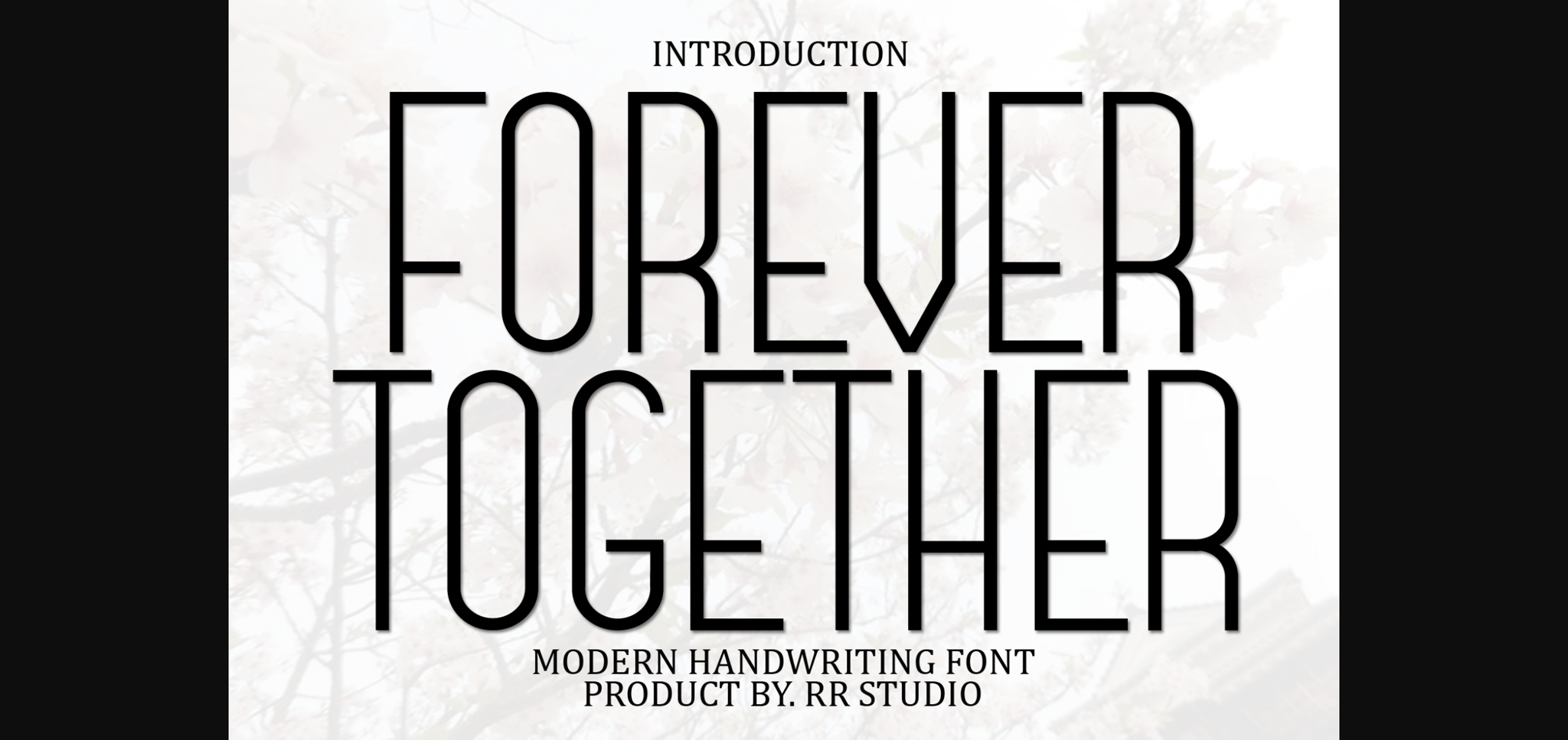
About Forever Together Font
Forever Together is a flowing, sleek, and trendy sans-serif font. Add it confidently to your crafty projects and enjoy the results!